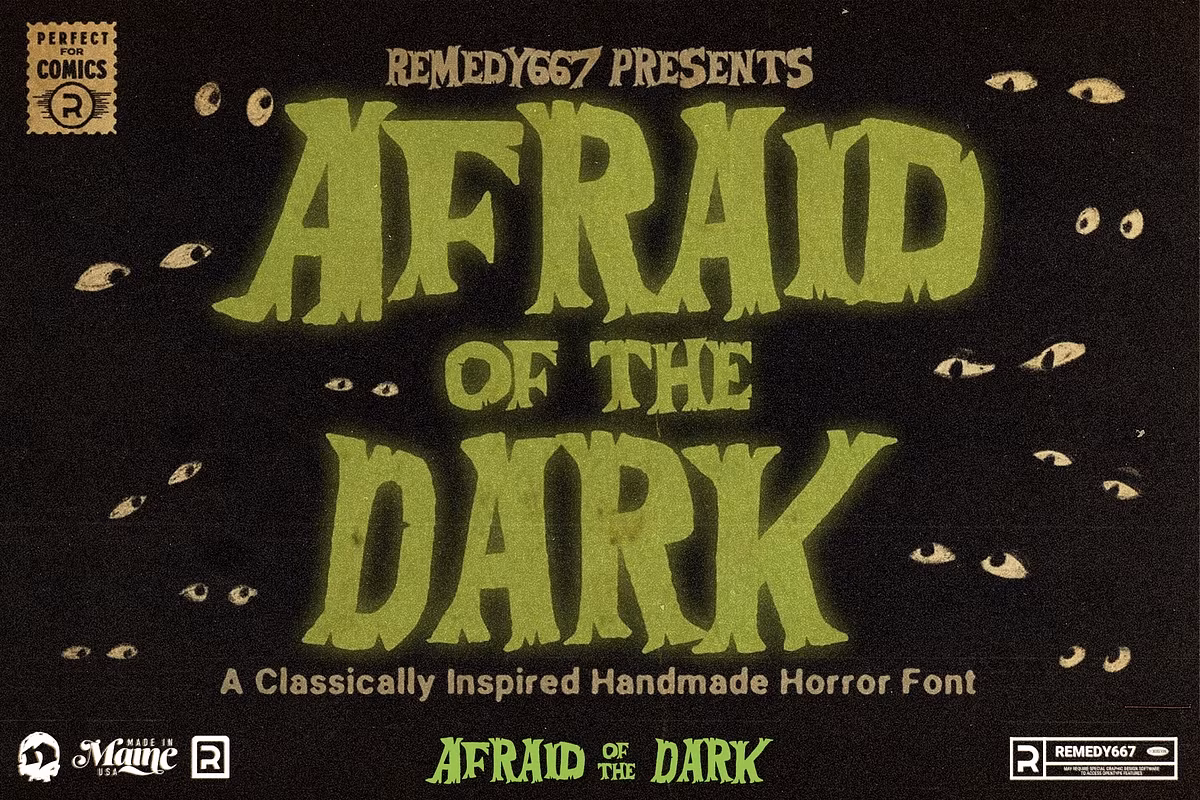
Afraid of the Dark Font Free Download is a spooky, dramatic typeface designed to send shivers down your spine. With eerie curves, jagged strokes, and a shadowy vibe, this font is perfect for Halloween-themed projects, horror movie titles, haunted house flyers, and anything that needs a chilling aesthetic.
Afraid of the Dark Font Free Download captures the essence of fear and suspense, making it a must-have for designers working on dark, mysterious, or supernatural concepts. Its unique lettering style adds instant atmosphere and makes your text impossible to ignore.
Whether used in print or digital formats, this font stands out with its horror-inspired look. You can test it out in personal projects or mockups, but a commercial license is required for professional use. Step into the shadows and give your designs a creepy twist with Afraid of the Dark.